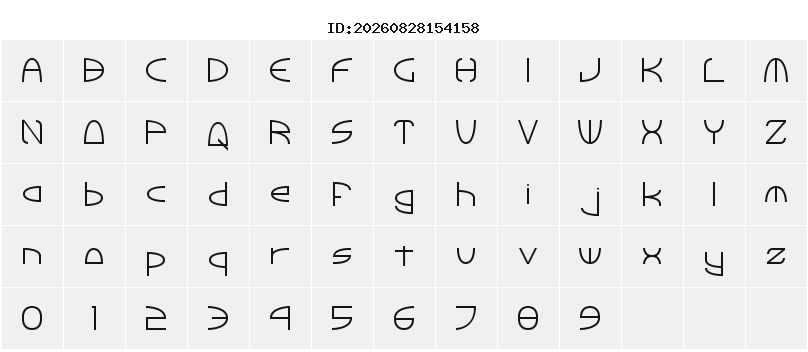
Tinker Round.ttf is a modern, elegant sans-serif font designed for ultimate readability and visual harmony. Perfect for branding, headlines, web design, and print materials.